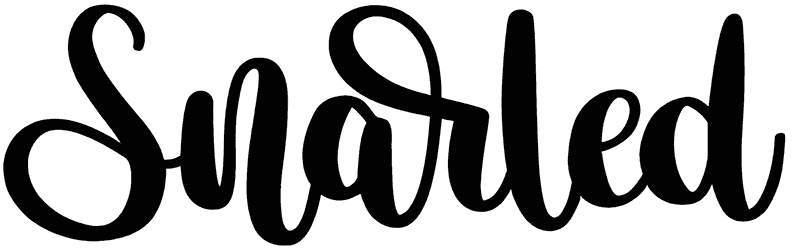
Candy Potato Font
What do you think about a natural and modern letterform for your design’s words? If you are seeking a unique one, this handwritten font would be interesting for you. You have almost full characters in this elegant and captivating script font. Use Candy Potato font for your upcoming designs, like a wedding invitation card.
the latest style letters are perfect for wall displays, wedding invitations, social media post logos,
advertisements, product packaging, product designs, labels, photography, watermarks, invitations, stationery,
and any project that requires taste handwriting.
Designed by: Scratchones